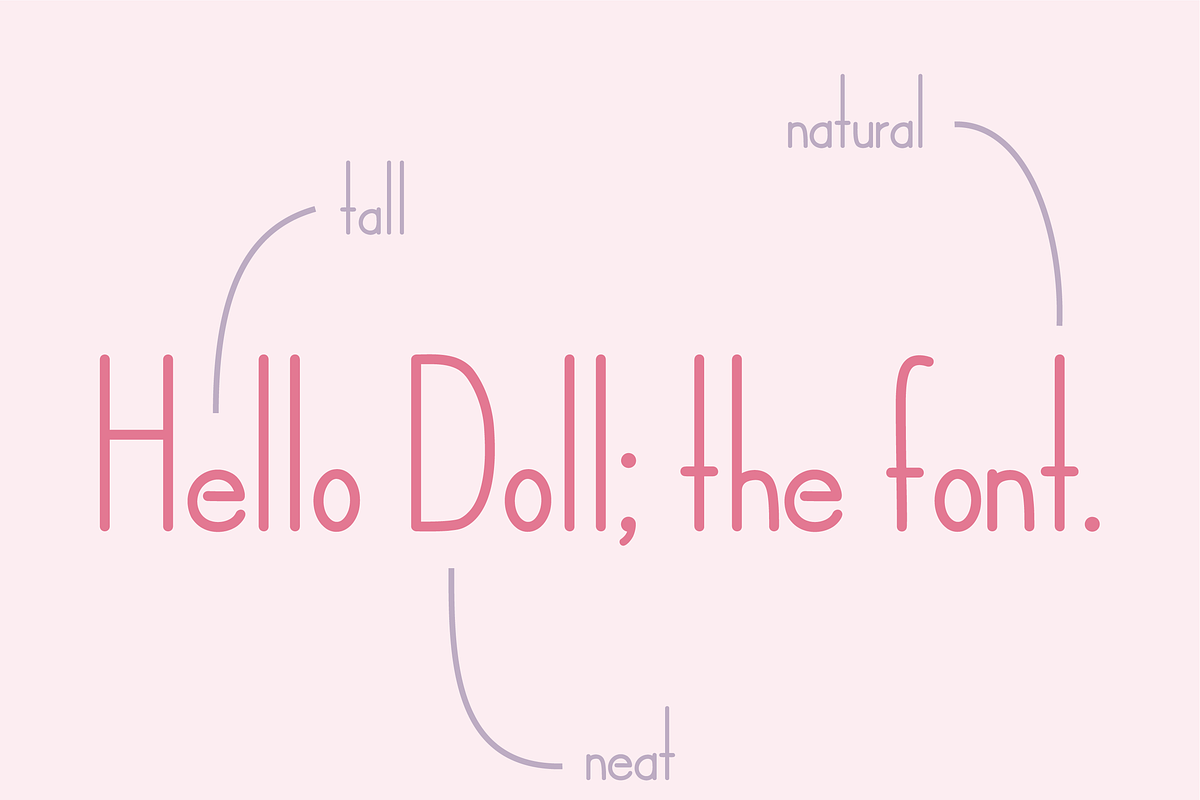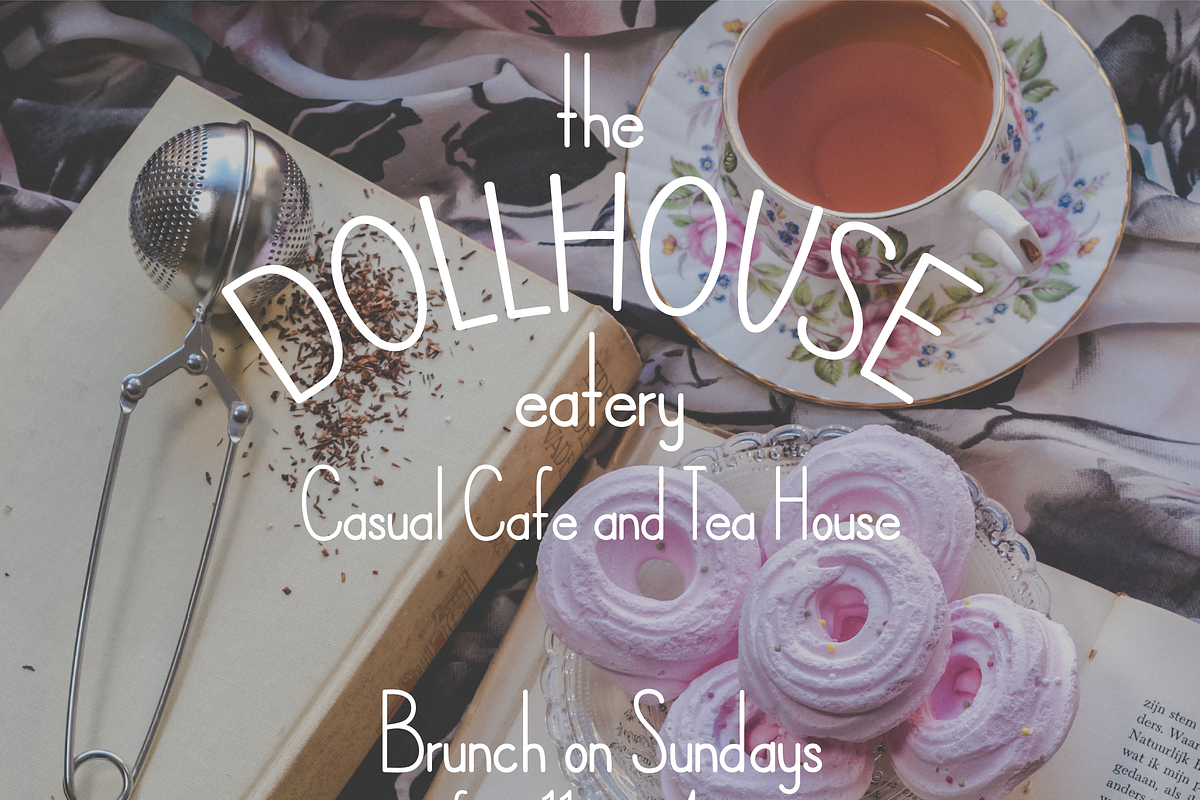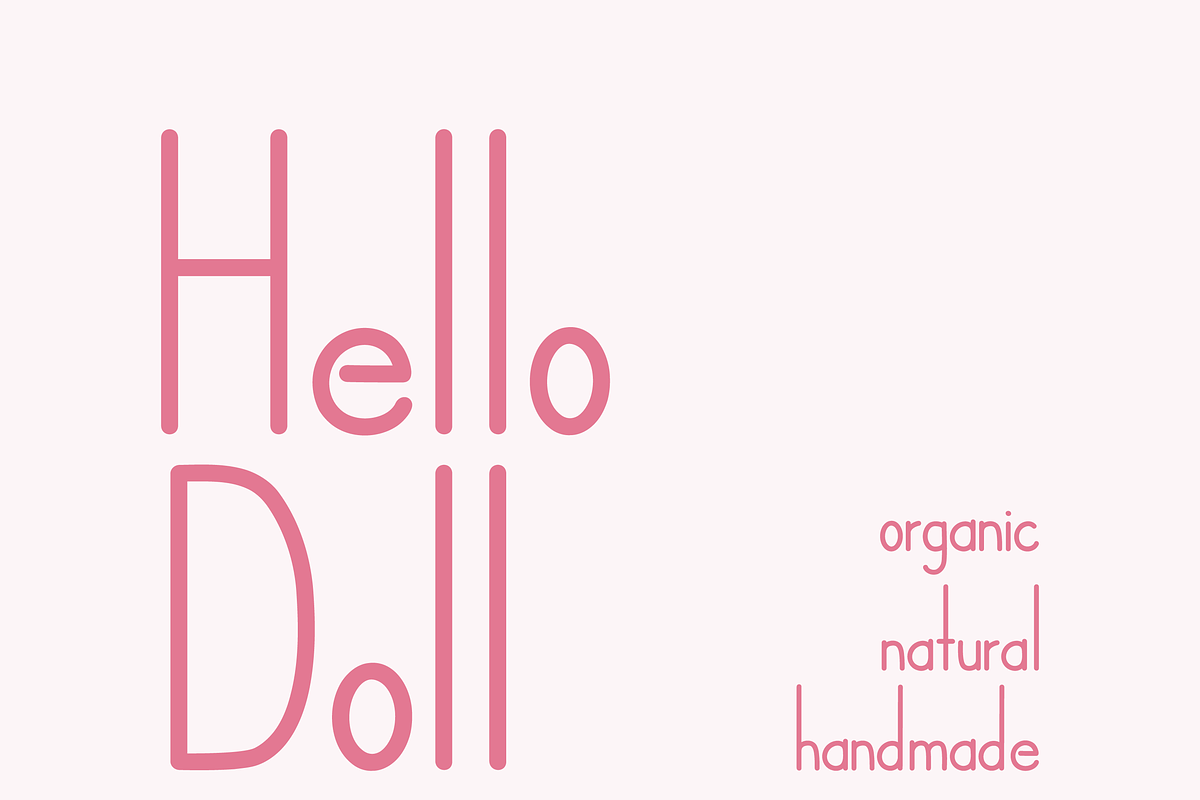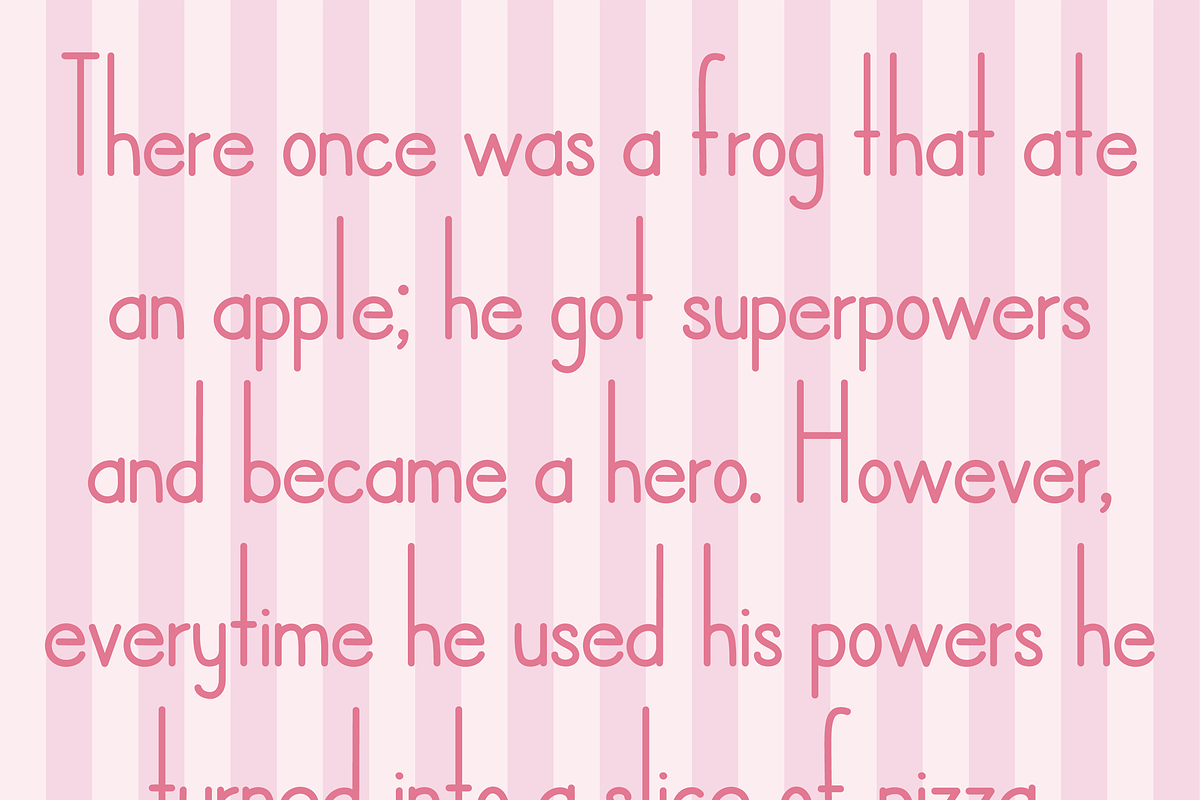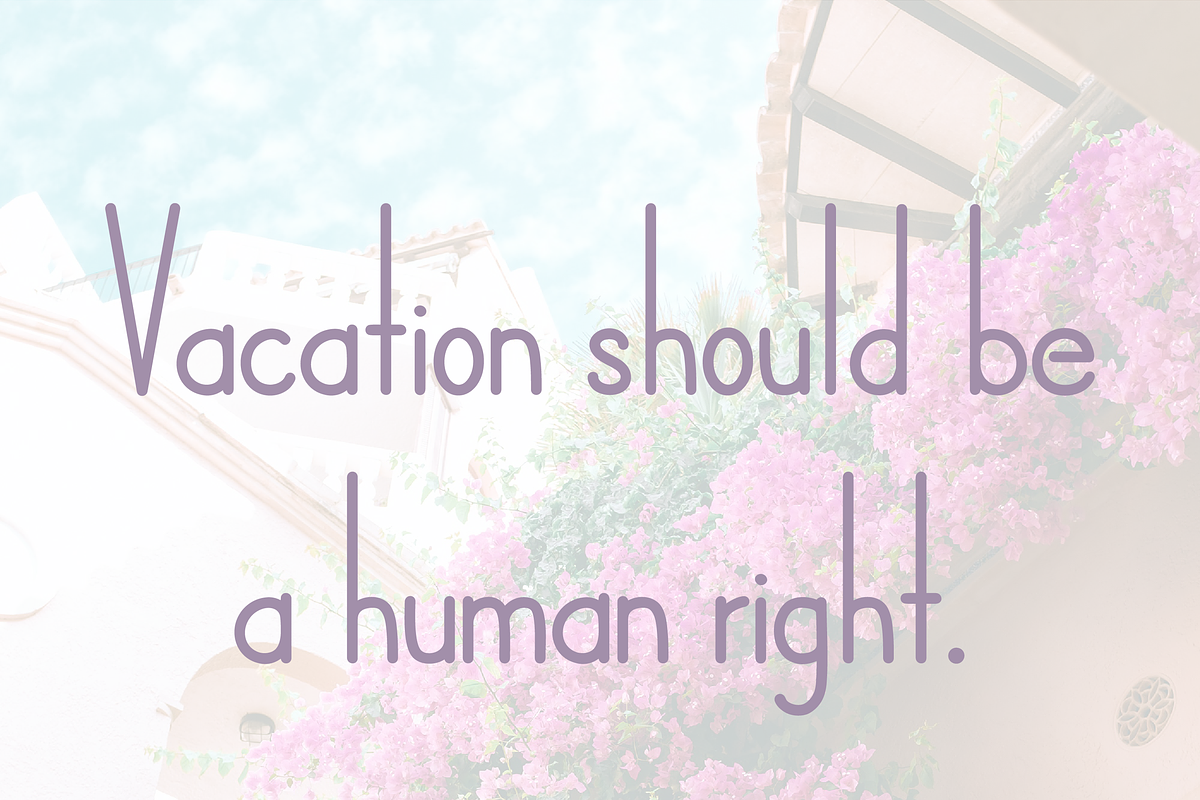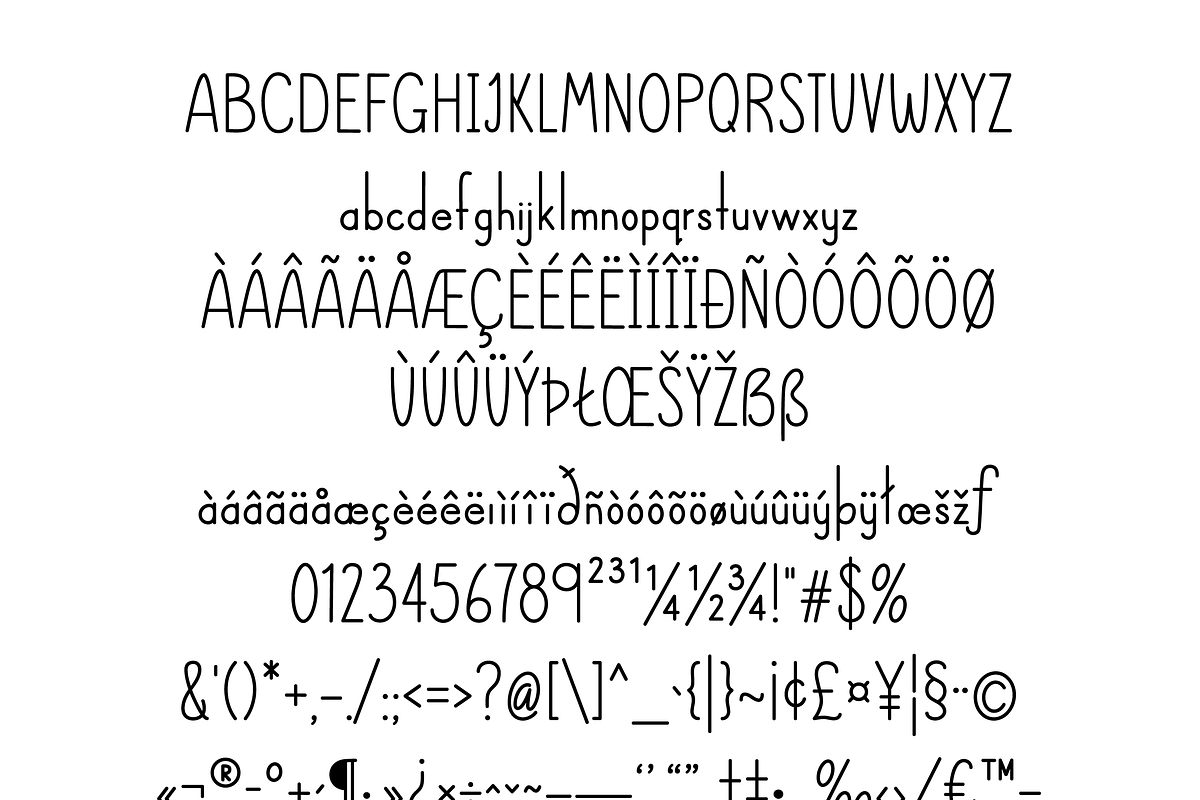
Hello Doll Font
Looking for a clean and feminine type? Hello Doll Font is perfect to use for branding in a bistro or even for doll or toy packaging. Its tall and neat styling gives this font a stylized yet organic look.